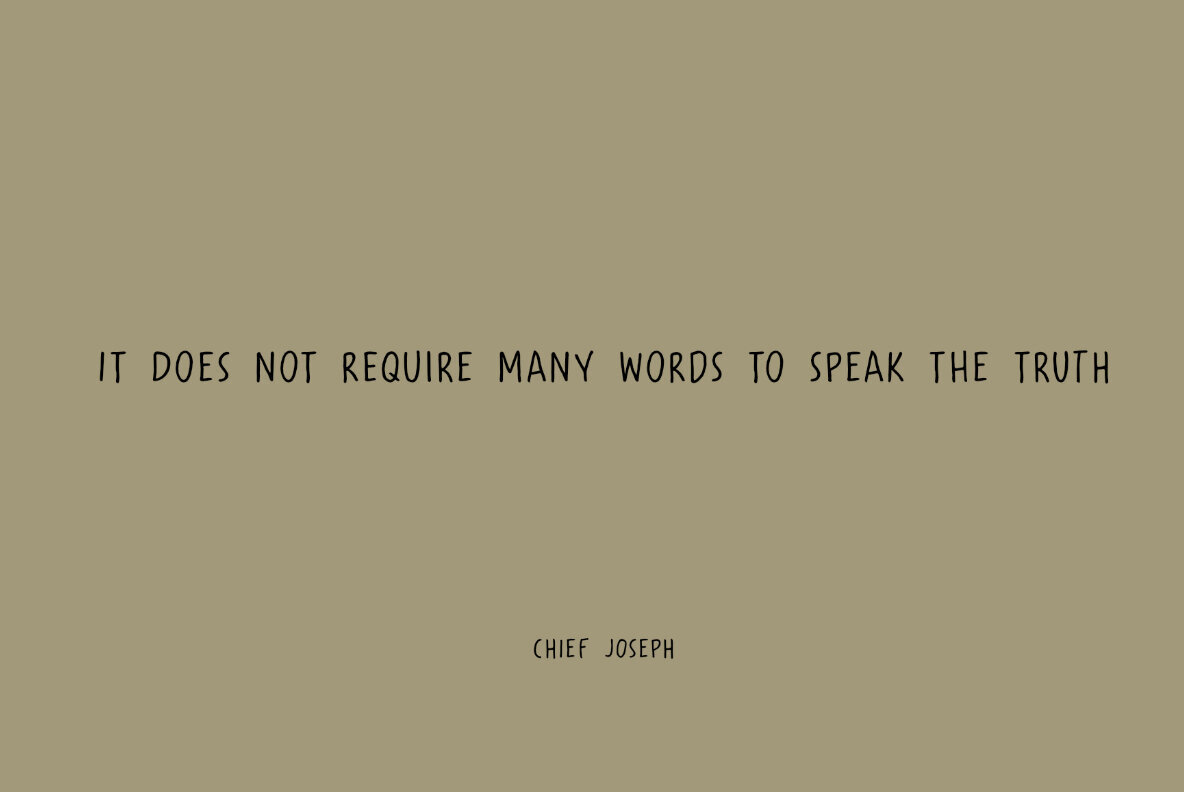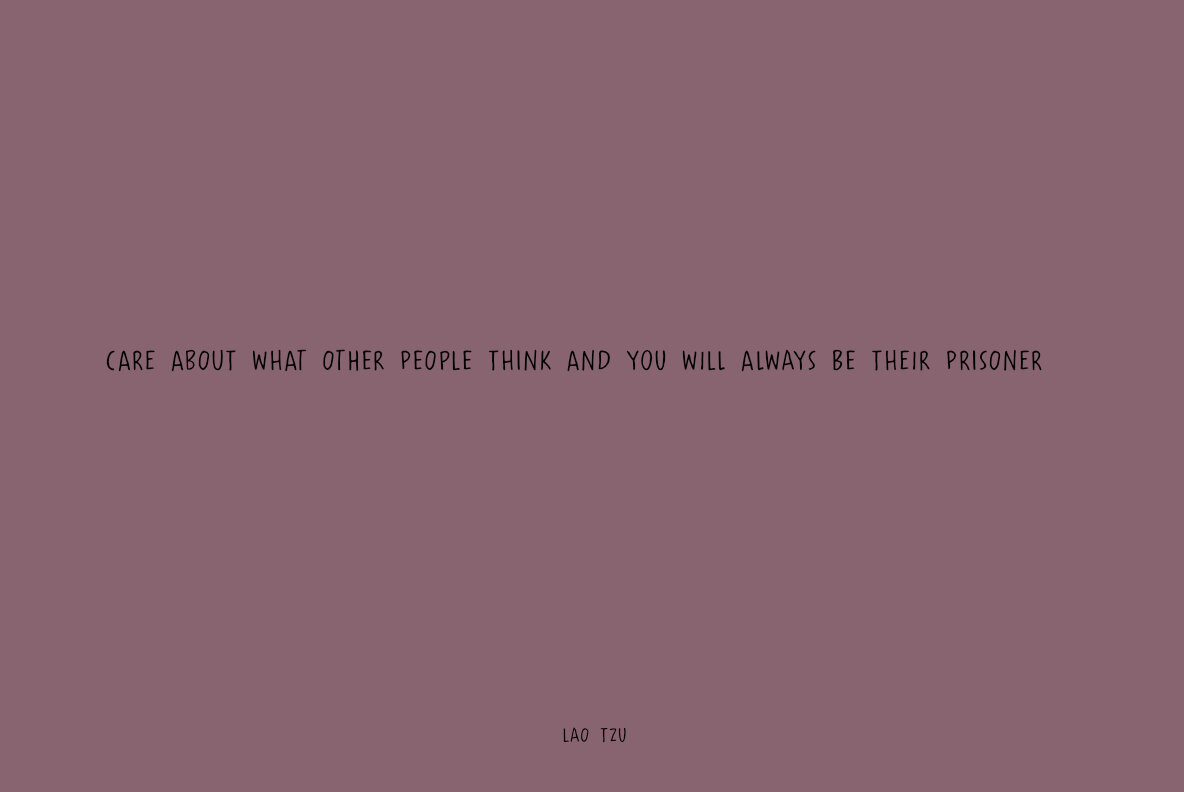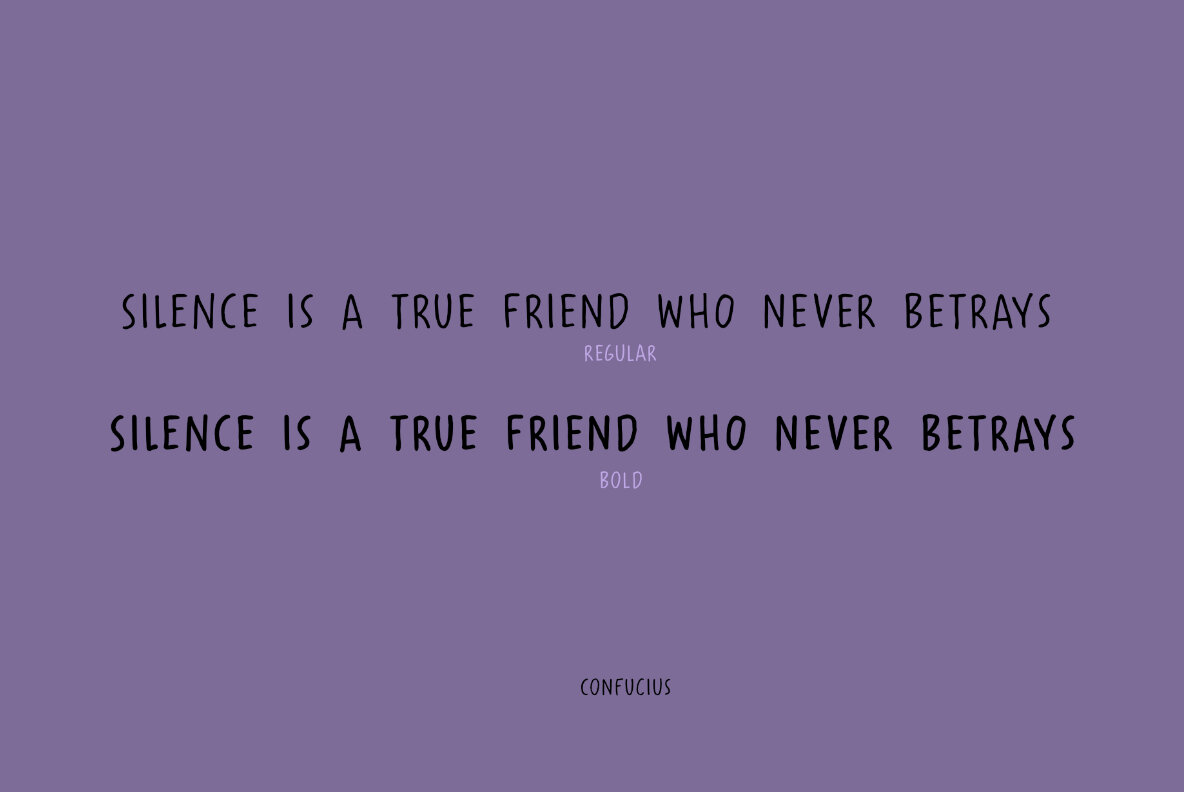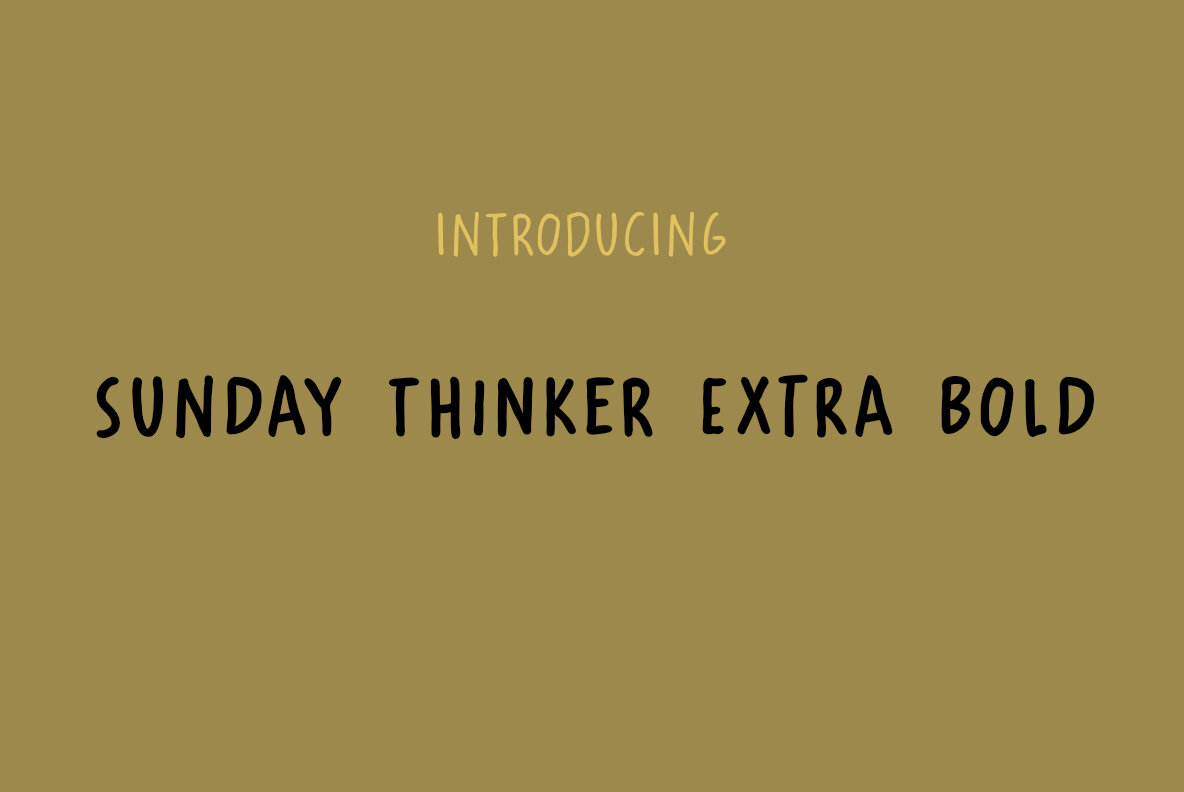
Sunday Thinker Font
Introducing the Sunday Thinker - a refreshing and audacious font, artistically imagined and meticulously crafted by renowned designer Hanoded. As its intriguing name suggests, this typeface was conceptualized on a Sunday, in a moment of spontaneous inspiration and registered under the simple yet eloquent name "Sunday Thinker". Far from the ordinary, this product resonates with the lucidity and assurance of the day on which it was born, making it an unmissable asset for graphic designers and marketing agencies seeking to infuse their projects with a unique artistic vision. Sunday Thinker is a meticulous blend of tasteful audacity and refined subtlety, living up to its namesake in creating profound designs that provoke thought and conversation. This font is perfect for designing logos, typographic quotes over photos, book covers and packaging design. Its versatility and contemporary aesthetic will undoubtedly facilitate the creation of visually stunning and impactful designs. Key Features of Sunday Thinker:Immerse your Designs in the Artistry of Sunday Thinker